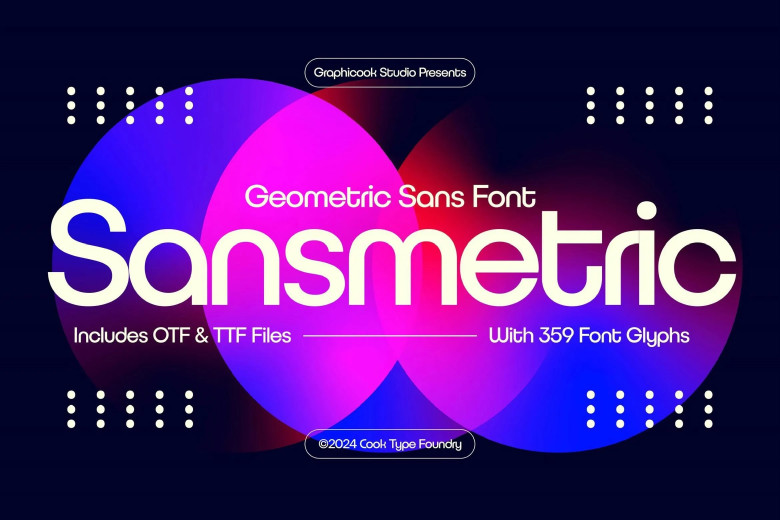
Sansmetric Font
The Sansmetric typeface is a typeface that is both Sans serif and geometric styles produce a clean design. This is why it is appropriate for any design project since it is so versatile. Sansmetric is suitable for headlines, logotypes, magazines, packaging, quotes, movies, games, cover albums, book covers, and flyers all those projects that require the usage of the typeface that will be outstanding in any sense.
Sansmetric Sans Serif Font